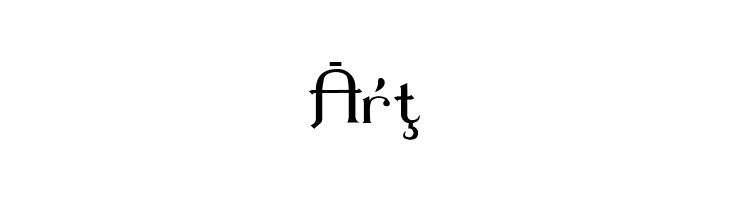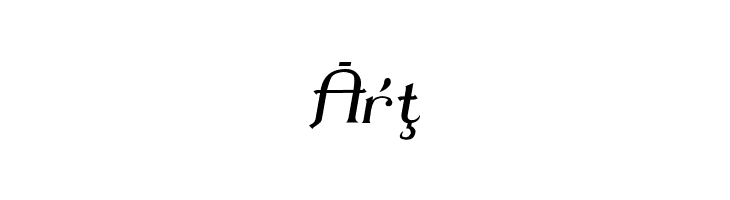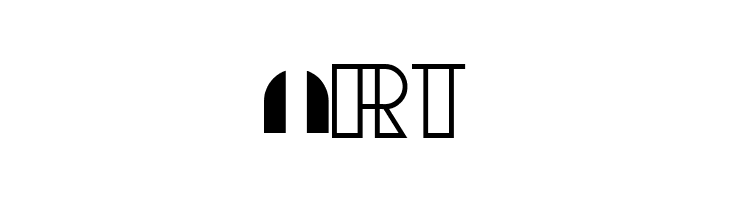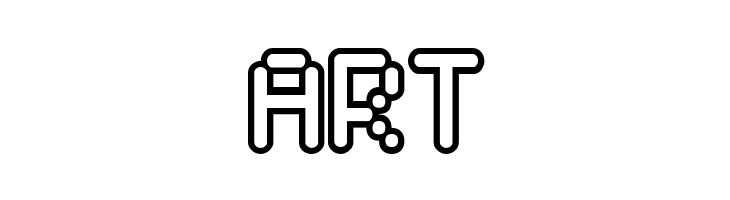
A geometric Art Deco font with sharp angles and elegant curves.
An elegant and playful oblique font with decorative elements.
A decorative font with modern flair, featuring bold accents and elegant curves.
A decorative font with elegant, swirling elements and artistic flair.
An oblique, decorative font with medium contrast and artistic flair.
A bold, geometric font with a modern and striking design.
A futuristic, geometric font with interconnected lines and circles.
A bold, italicized font with a modern and energetic style.